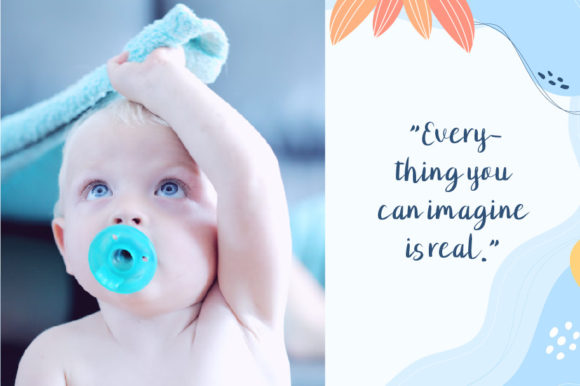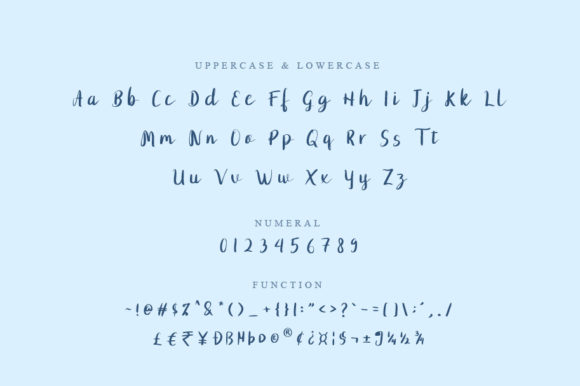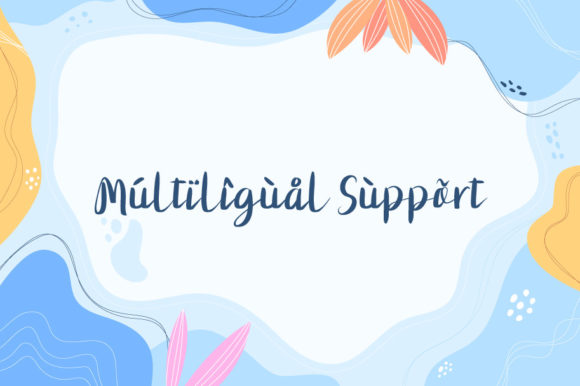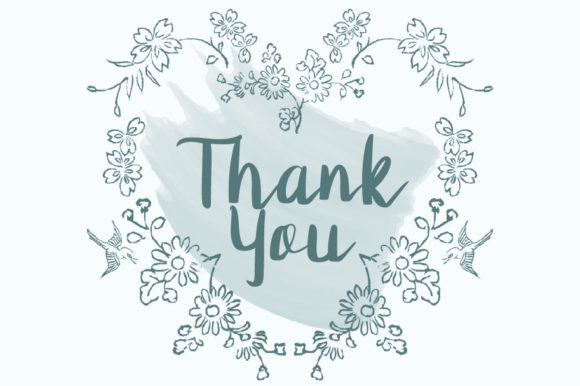
Introduction to Qafis Font
Have you ever stared at a blank canvas, feeling the weight of a creative project on your shoulders? The cursor blinks, and the silence is deafening. But then, it happens – a spark of inspiration strikes, and the design begins to take shape. For many designers, this moment is the culmination of hours, days, or even weeks of searching for the perfect font.
Enter Qafis Font, a timeless handwritten font that breathes life into your designs. With its unique and beautiful touch, every letter is a masterpiece waiting to be discovered. Whether you’re creating eye-catching logos, branding, or quotes, Qafis Font is the ultimate design resource. And the best part? It’s available for free download, allowing you to focus on what truly matters – bringing your creative vision to life.
As a designer, you know the value of having high-quality design elements at your fingertips. Qafis Font is a valuable addition to any design arsenal, offering a transparent background and a range of styles to suit your creative needs. So why wait? Unlock the full potential of Qafis Font and watch your designs come alive in a whole new way.
Key Features of Qafis Font
- Unique, modern font style with a transparent background, perfect for adding a touch of elegance to your design.
- Features a clean and minimalist design, making it easy to read and versatile for use in different contexts.
- High-resolution design, suitable for use in print and digital media, with a minimum resolution of 300 DPI.
- Perfect for designers and artists looking for a free design resource to elevate their creative project.
- Includes a comprehensive character set, ensuring that you have all the letters and symbols you need for your design.
Honest Review: Qafis Font
As a designer, I’m always on the lookout for high-quality design resources to enhance my creative projects. Recently, I stumbled upon the Qafis Font, and I’m excited to share my thoughts on this font.
- ✨ Elegant and modern design that’s perfect for contemporary projects
- ✨ Highly legible, even at small font sizes
- ✨ Offers a transparent background option, making it easy to customize
- ⚠️ Limited character set, which might be a concern for languages that require a broader character range
Overall, I’m impressed with the Qafis Font’s design and versatility. While it may have some limitations, it’s a great resource for personal or small-scale creative projects. If you’re looking for a high-quality font to enhance your design, I’d definitely recommend giving Qafis Font a try.
Qafis Font
The Qafis Font is a high-quality design resource perfect for creative projects that require a unique and stylish touch. With its transparent background and sleek design, it’s an excellent choice for adding a professional finish to your work.
Tips for Getting the Most Out of Qafis Font
- Combine Qafis Font with other design elements to create a unique and eye-catching design.
Qafis Font is perfect for a variety of creative projects, including:
- Website design and branding